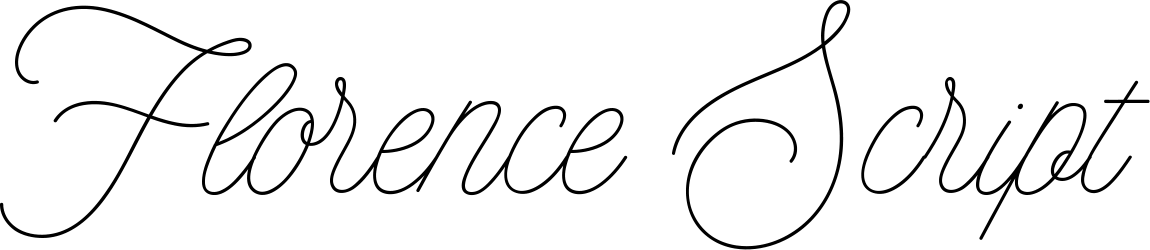
MADE Florence Script Font
One of the choices for writing fashion headlines, inspirational quotes, and invitation cards is using a calligraphy font. MADE Florence Script has elegant and feminine characters and all of its elements are designed with thin elements. It can convey a classy, aesthetic, and royal vibe to the reader and bring a handwritten illusion to your texts.
MADE Florence is a beautiful font duo.
The Florence will perfect for many project: design, fashion, magazines, logo, branding, photography, wedding invitations, quotes, blog header, poster, advertisements, etc.